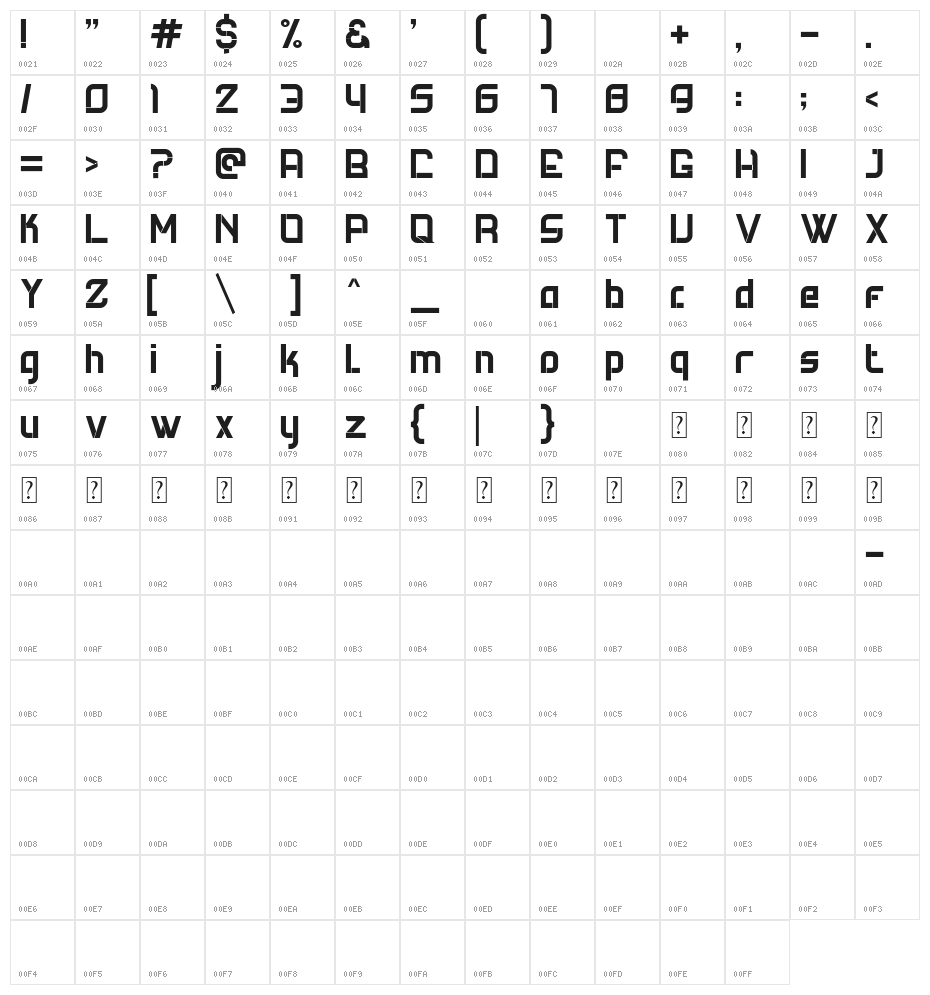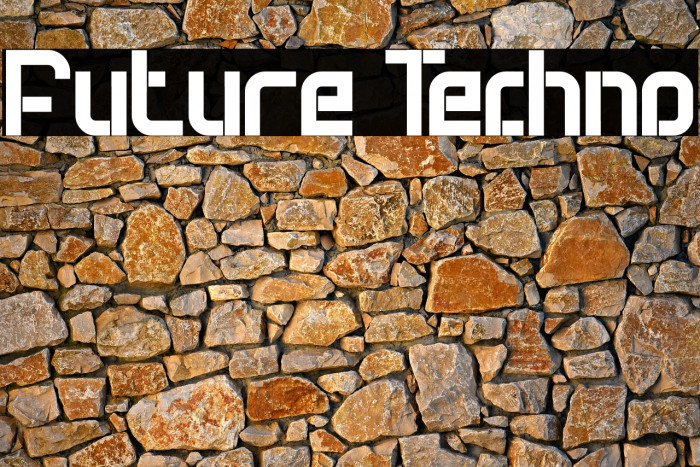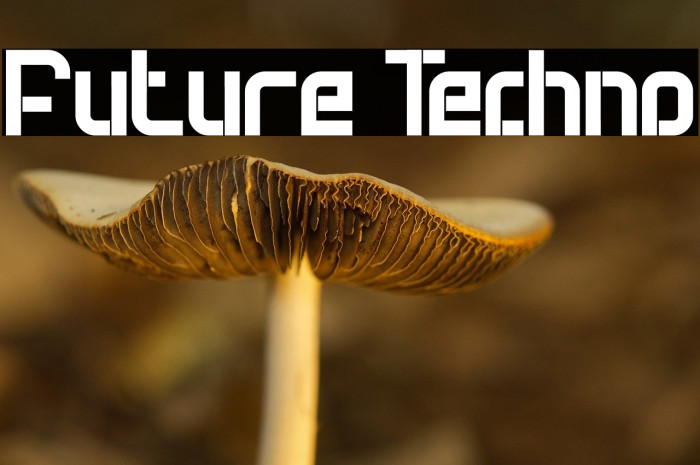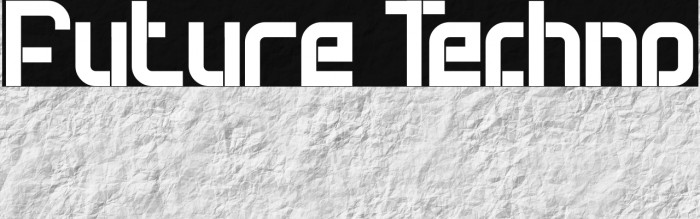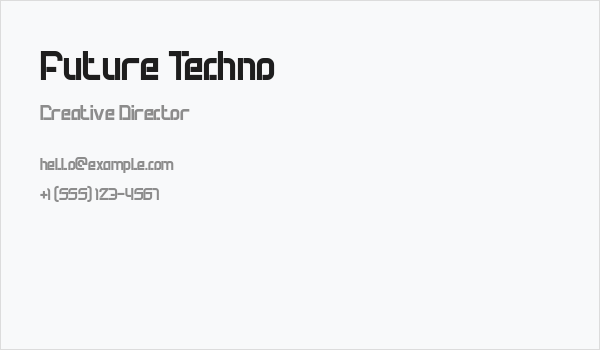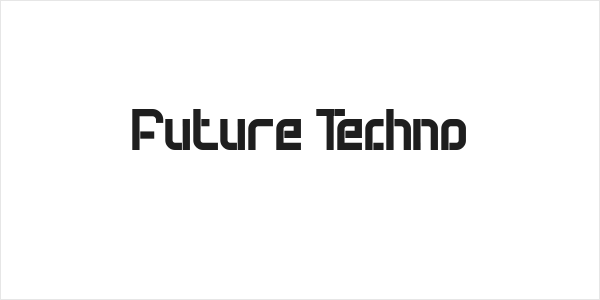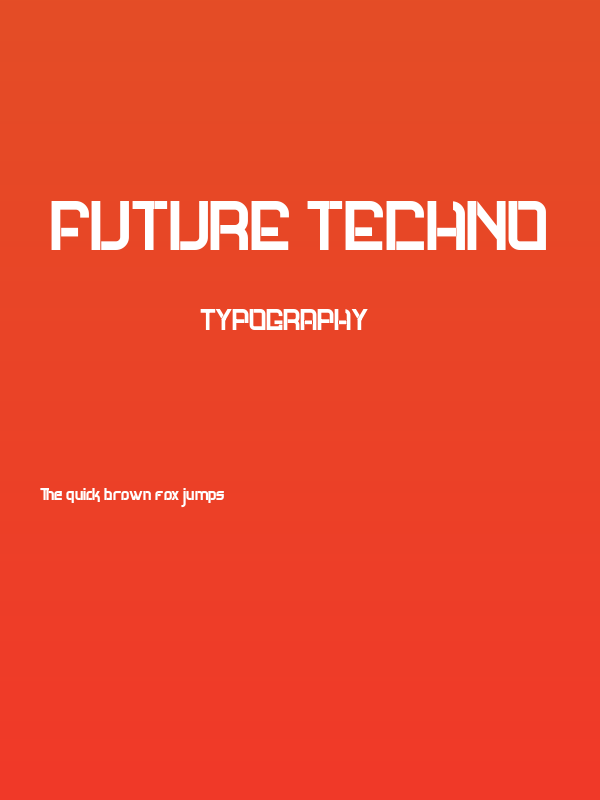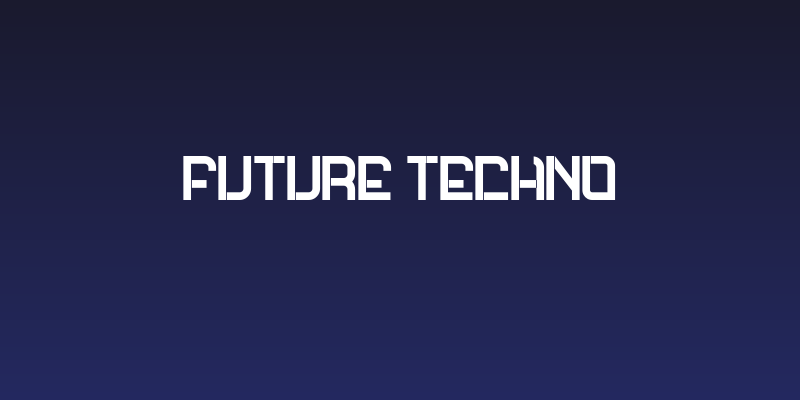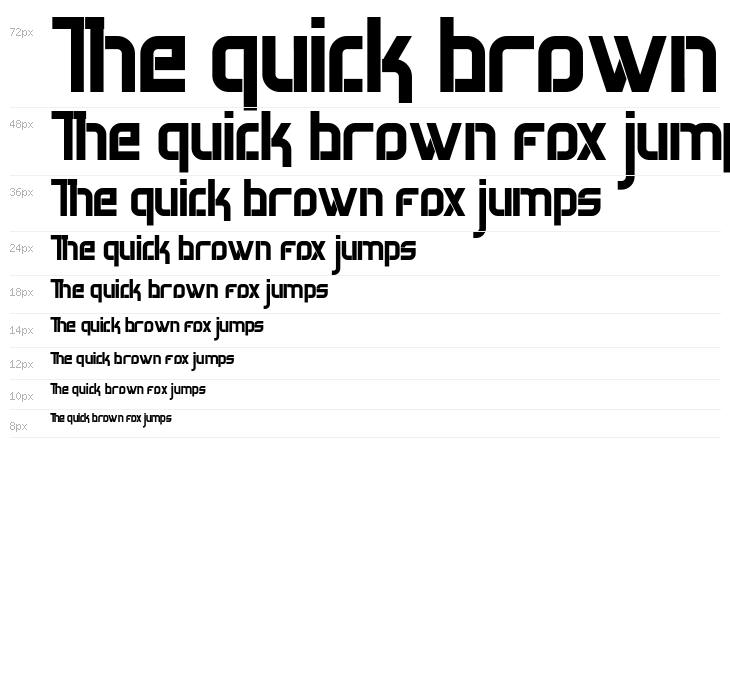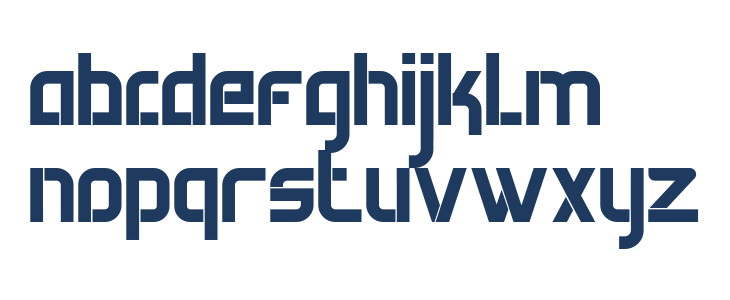
Future Techno Font
Future Techno Description
This font embodies a futuristic and technological aesthetic, characterized by its geometric and angular letterforms. The uppercase and lowercase letters maintain a consistent structure, with sharp edges and a uniform stroke width that conveys a sense of precision and modernity. The numerals and special characters are designed to complement the overall style, featuring similar angular elements. The font's clean lines and minimalistic design make it suitable for projects that require a contemporary and innovative look.
| Proposed Projects | Ideal for technology branding, sci-fi themed designs, digital interfaces, and modern advertising campaigns. |